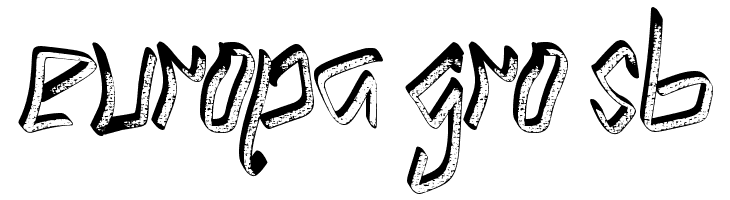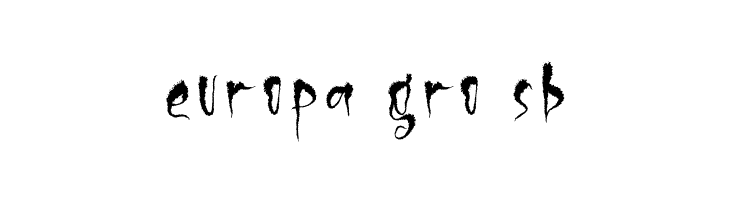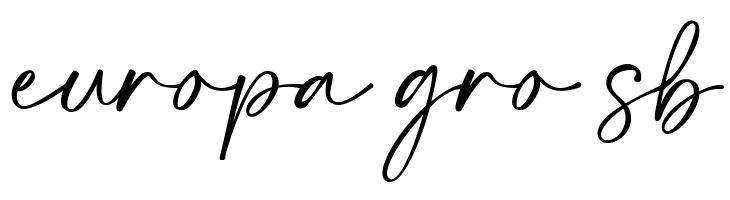
A dynamic, hand-drawn font with bold, textured strokes and an edgy, artistic style.
A bold, brush script font with dynamic and expressive strokes.
A wild, edgy font with sharp, hand-drawn strokes and a raw, expressive style.
A flowing, cursive font with elegant, interconnected characters.
A bold, flame-inspired font with dramatic, pointed serifs and intense visual impact.
A flowing, cursive font with a handwritten style and elegant, connected characters.
A sophisticated, elegant handwritten font with fluid, graceful strokes.
Playful handwritten font with a whimsical style.
Thin, expressive handwritten script with a casual, organic feel.